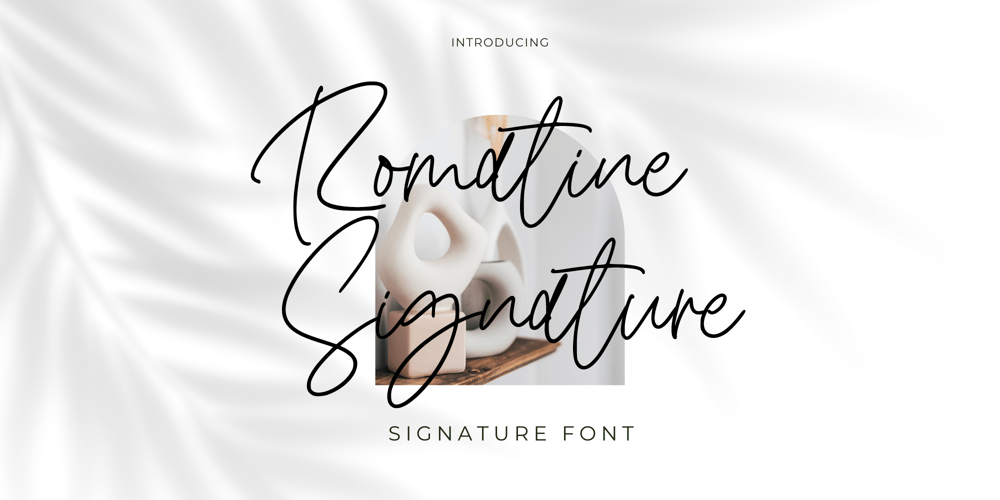
Romatine Signature
Romatine Signature font
Romatine Signature Font Family was designed by Amin Maryono and published by Aminmario Studio. Romatine Signature contains 2 styles and family package options. Romatine Signature FontRomatine Signature is a stylish signature font. Its modern charm makes it appear wonderfully, readable, and, ultimately, incredibly versatile. This font will look outstanding in any context, whether it’s being used on busy backgrounds or as a standalone headline!Thank you for the purchase.Happy creating design 🙂